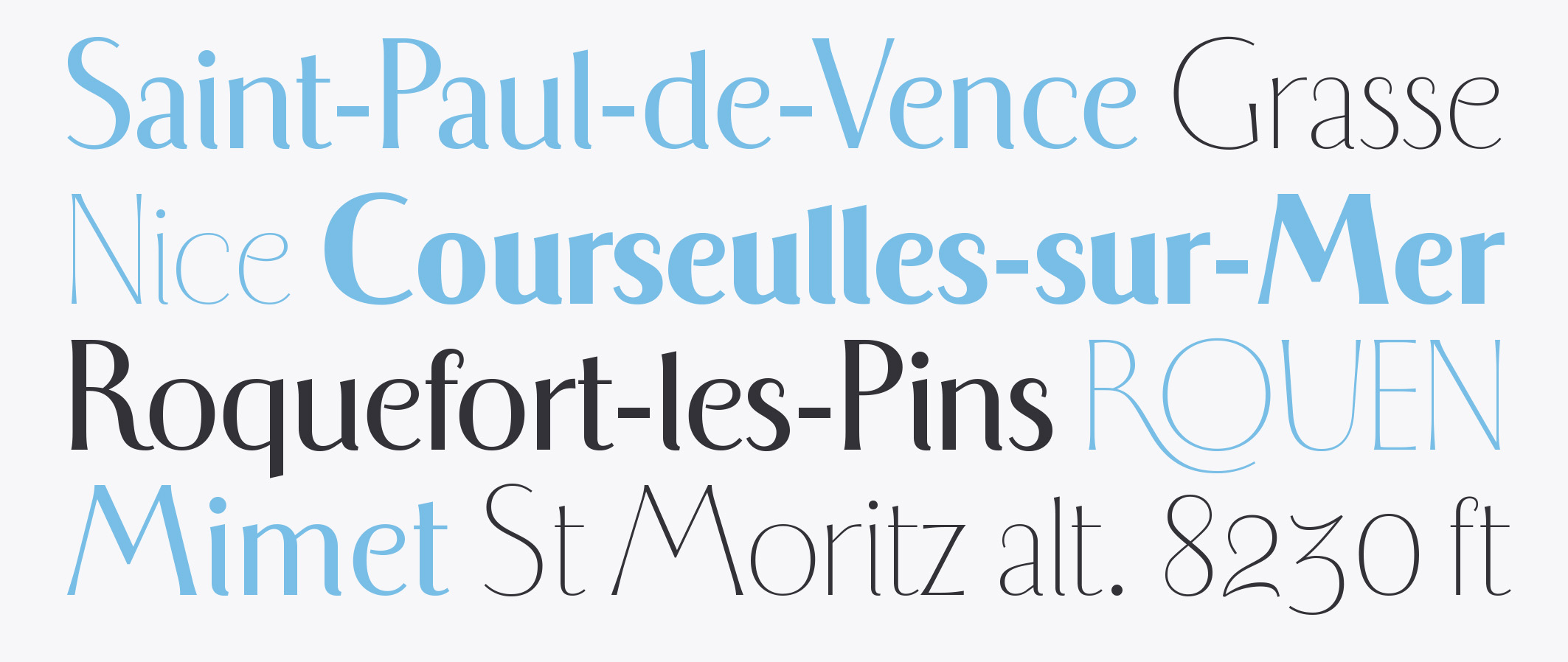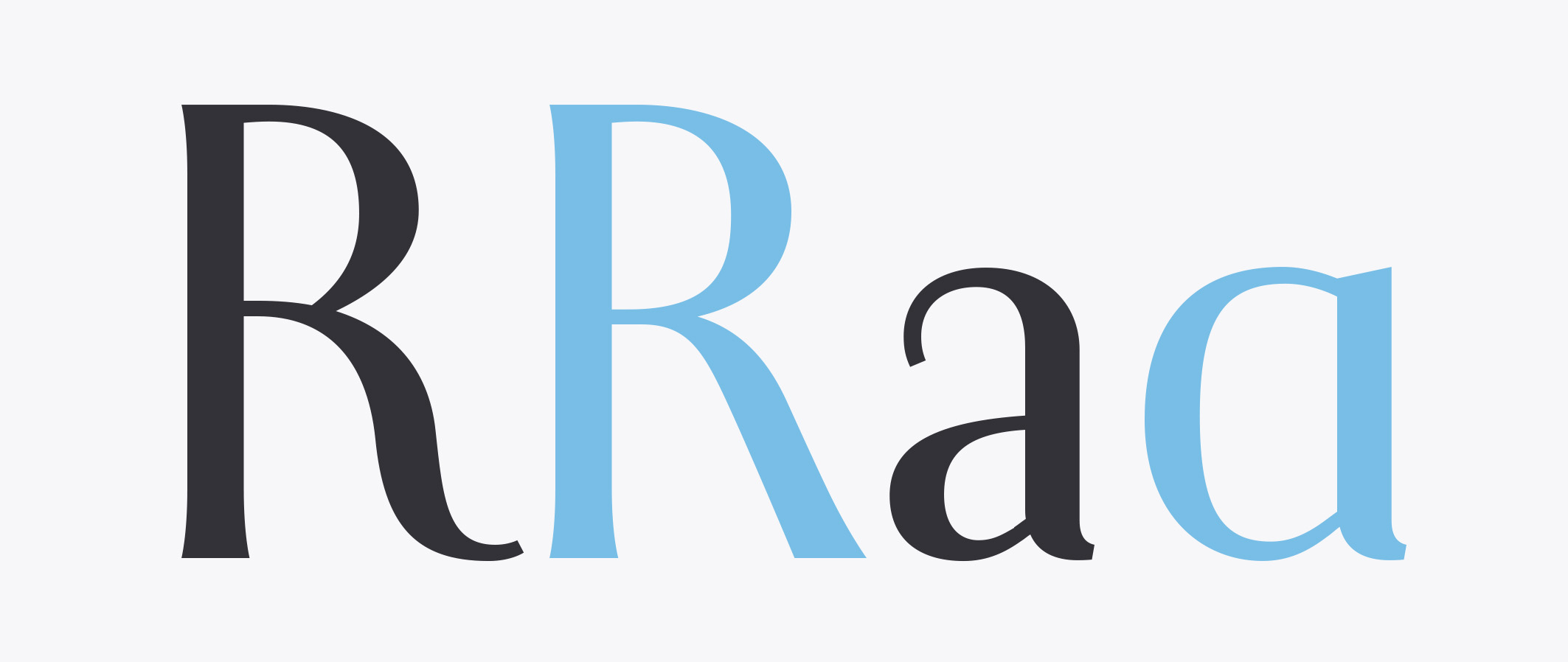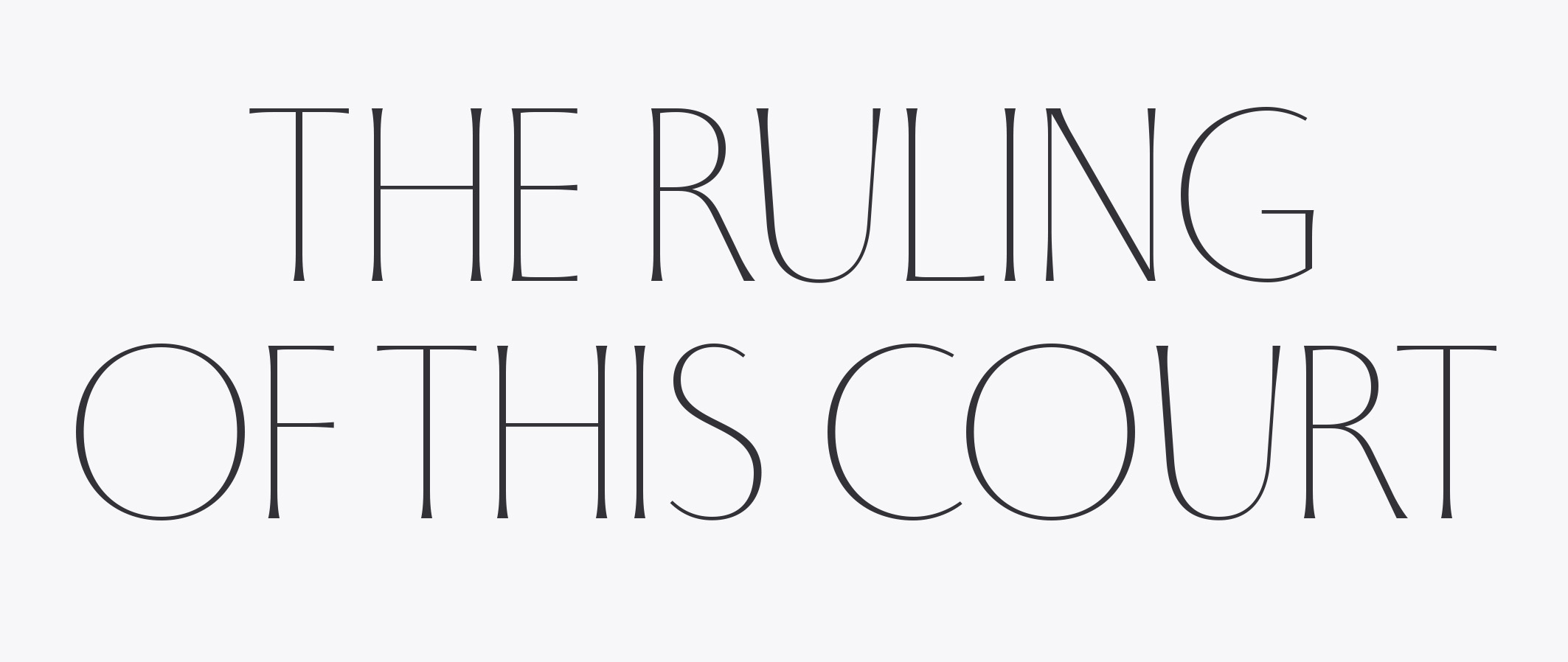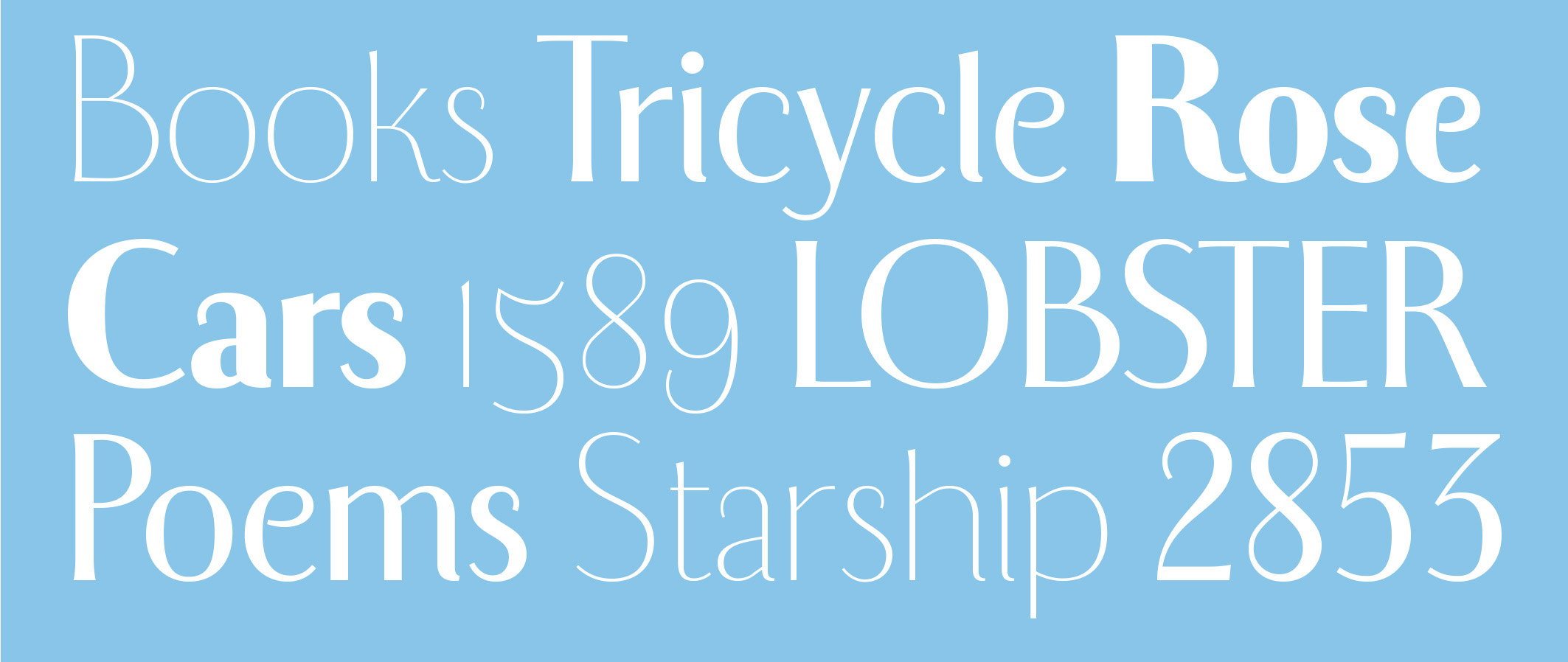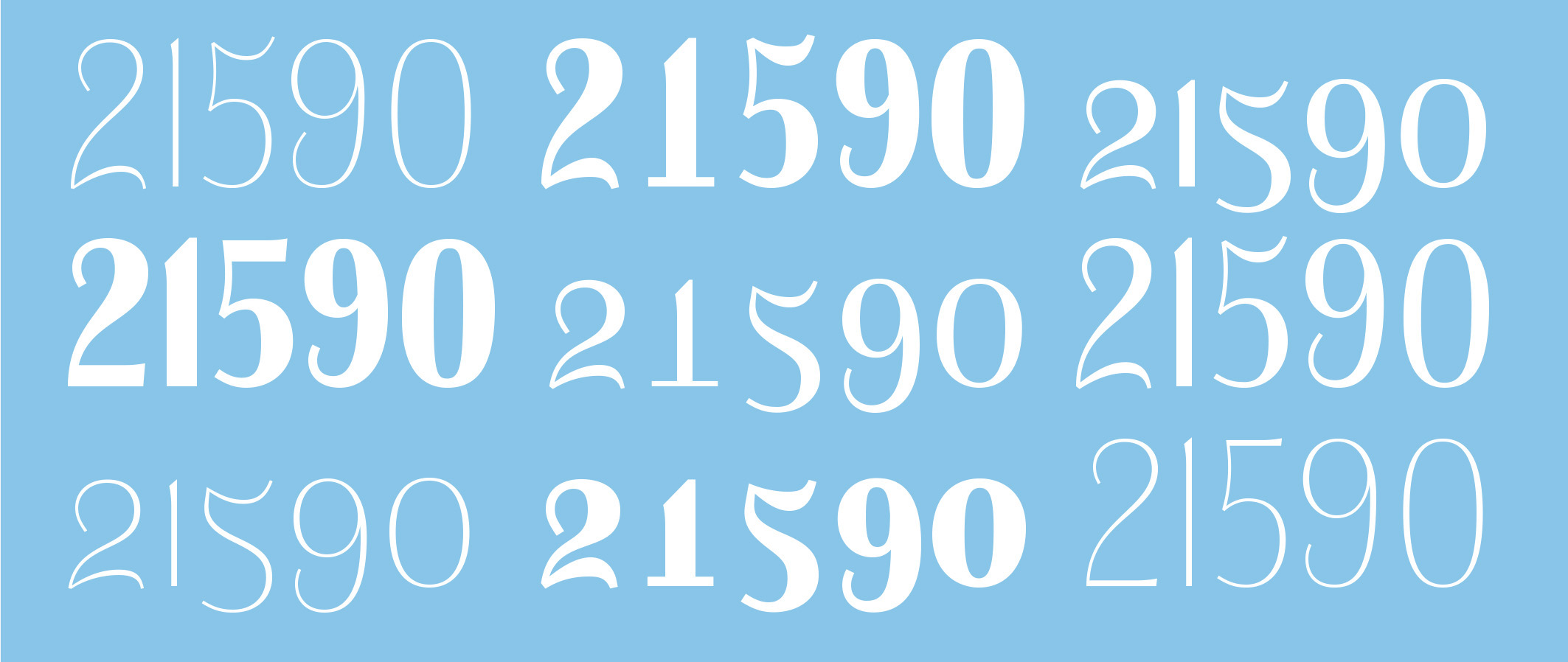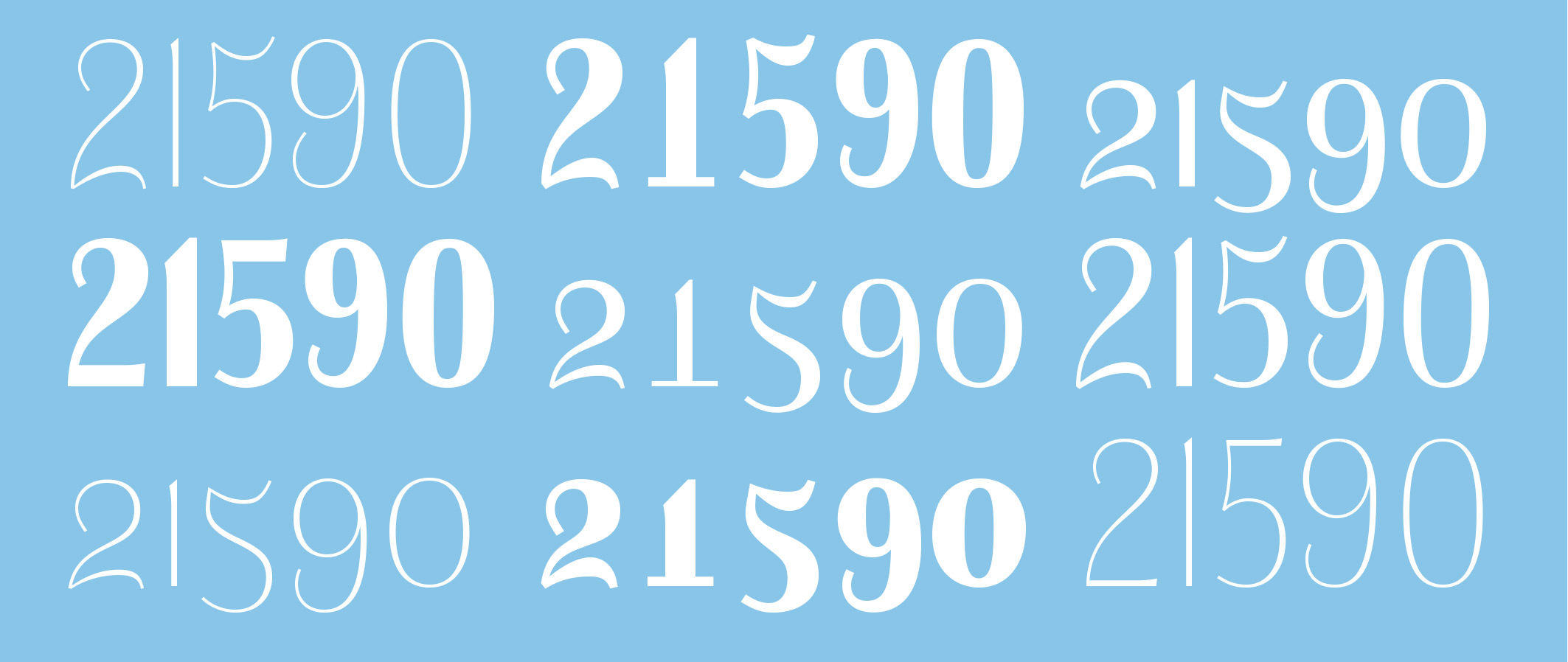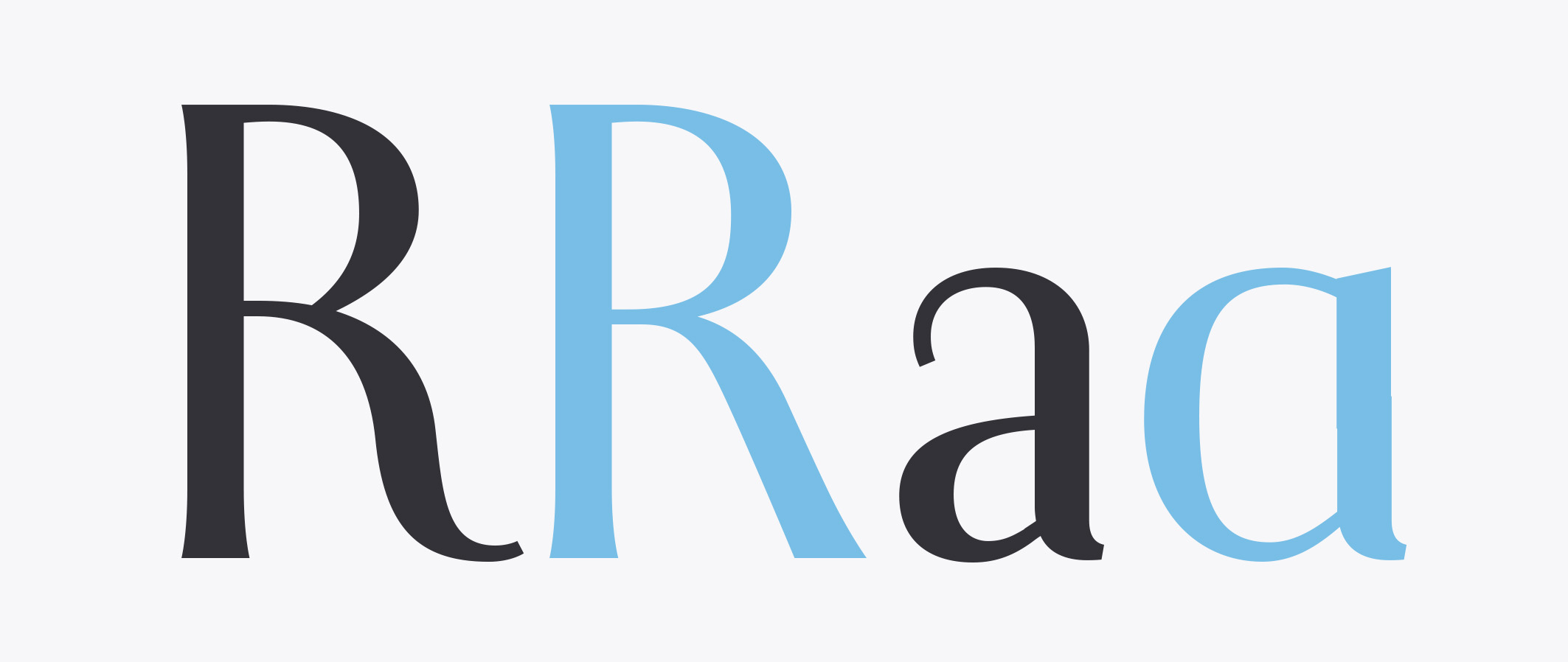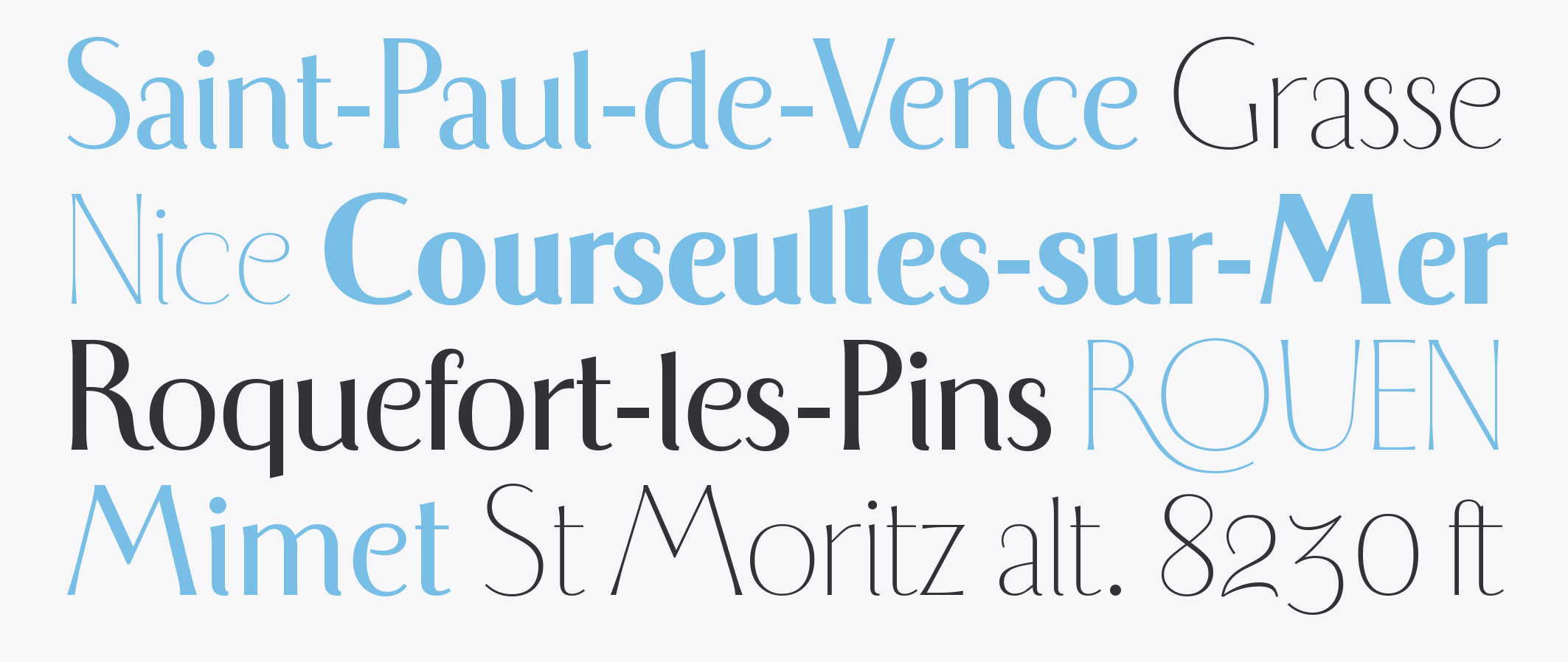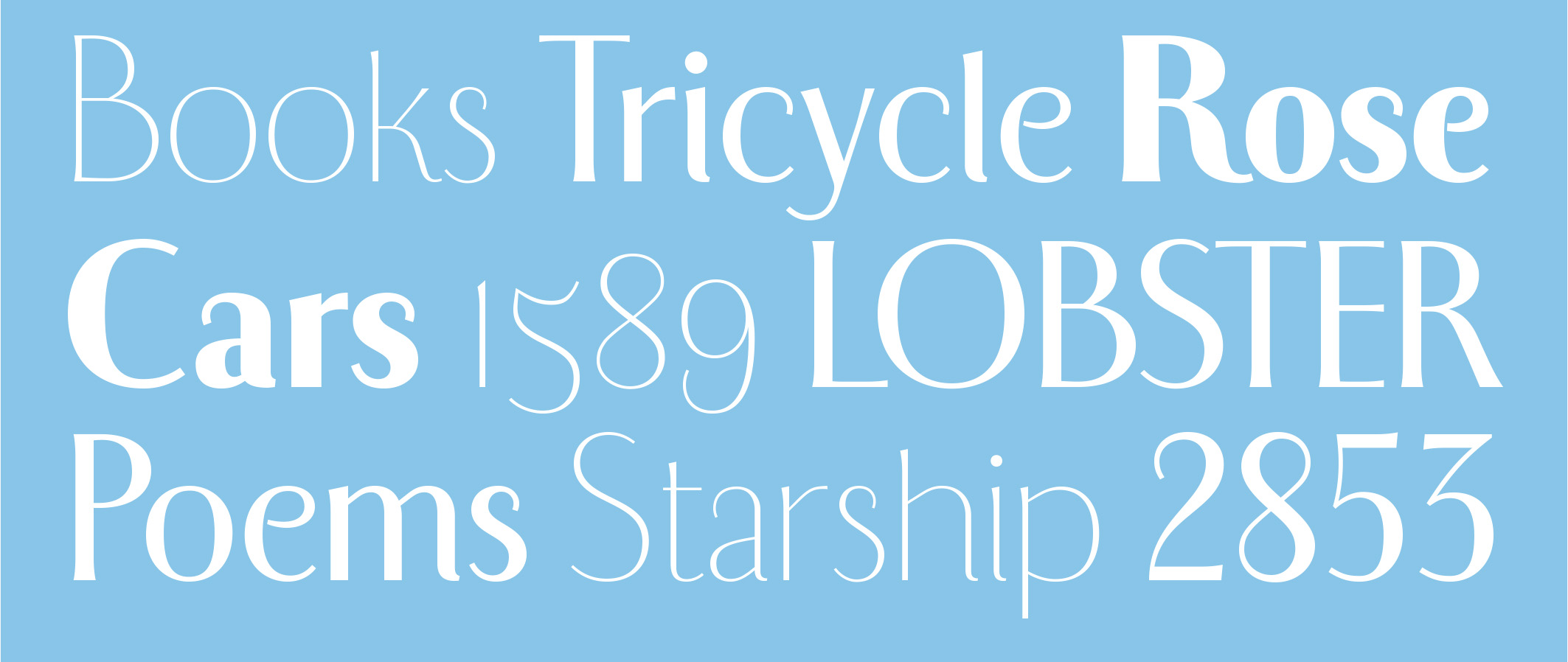
Caramina
New Caramina is flavoured with a touch of avant-garde. Designed for headline, magazine and book cover use it comes with a number of figure styles and a stylistic set where some letters have been alternated for better legibility in small sizes.
Stylistic set 1: Upper-, lowercase and figures.
Stylistic set 2: Uppercase only.
Stylistic set 3: Lowercase only.
Stylistic set 2: Alternate figures only.